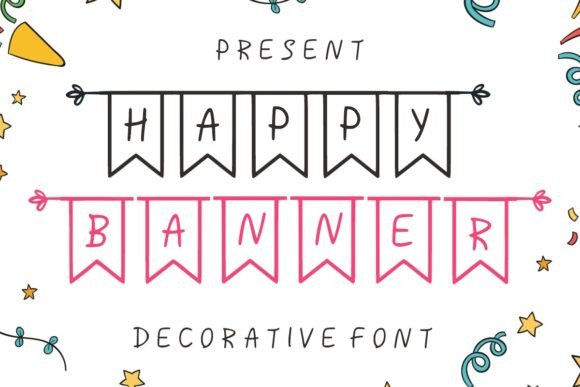
Discover Happy Banner Font, the exuberant display font that injects a burst of joy and youthful energy into your creative endeavors. Crafted by the skilled hands at Infinity Art Studio, Happy Banner Font is not just a collection of letters; it's a celebration of life, a dance of colors, a symphony of smiles.
Unleash your creativity with Happy Banner Font and watch as your designs transform into captivating masterpieces. With its playful framed banner for each letter, this font adds a touch of whimsy and cheer to every word, every phrase, every message you convey.
Picture this: you're creating a poster for a children's party, and you need a font that captures the excitement and wonder of the event. Happy Banner Font steps up to the plate, its vibrant colors and playful shapes instantly setting the tone for a day filled with laughter and joy.
Or perhaps you're designing a clothing line targeting the young and spirited. Happy Banner Font becomes your secret weapon, adding a touch of youthful exuberance to your T-shirts, hoodies, and accessories. Its unique design is sure to resonate with your target audience, making your brand stand out from the crowd.
But Happy Banner Font's versatility doesn't stop there. Its charm extends to price tags, party invitations, banners, and any design that craves a touch of youth and happiness. Let your imagination run wild, and Happy Banner Font will follow, transforming your creative visions into tangible works of art.
So, embrace the magic of Happy Banner Font today, and unlock a world of endless possibilities. Let its joyful spirit infuse your designs, spread happiness wherever it goes, and make your creative dreams come true.